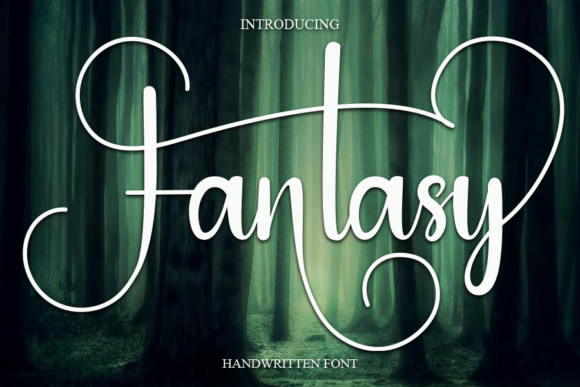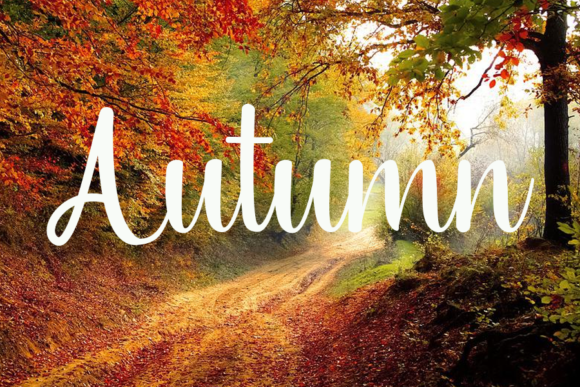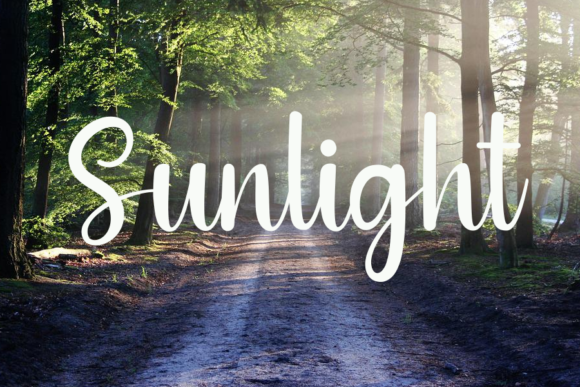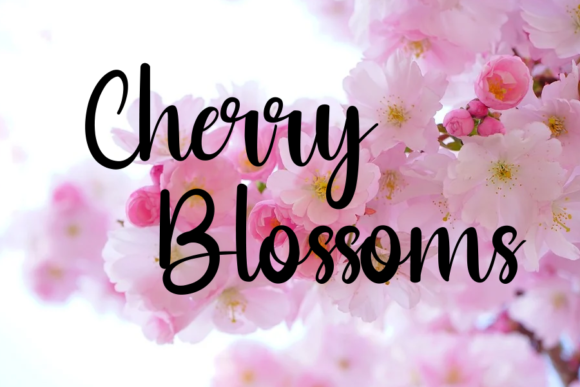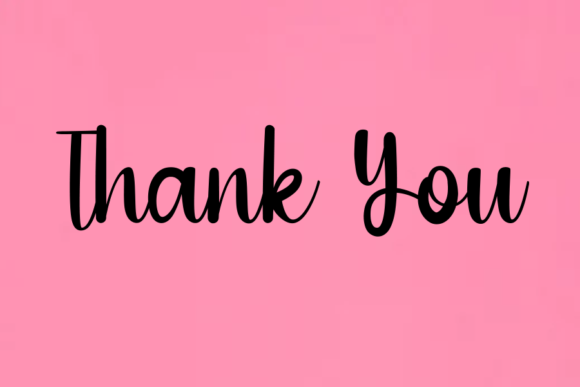
Fantasy Font
About Fantasy Font
“Fantasy” is described as a sweet, romantic, and beautiful script font, adorned with chic curves in each letter. Additionally, the font is PUA coded, offering easy access to all the glyphs and swashes for convenient customization.
The charming and romantic qualities of “Fantasy” make it a versatile choice for projects that require a touch of elegance and sophistication. The chic curves in each letter contribute to the font’s overall visual appeal, creating a flowing and graceful script that adds a sense of delicacy and refinement to the text.
One notable feature of “Fantasy” is its PUA coding, standing for Private Use Area. This coding system allows users to effortlessly access all the available glyphs and swashes. Designers can leverage this feature to personalize and customize their projects seamlessly, ensuring a unique and tailored appearance. Whether you’re working on wedding invitations, romantic quotes, or any creative endeavor that demands an expressive script, the PUA coding in “Fantasy” proves to be a valuable asset.
The versatility of “Fantasy” extends beyond its romantic undertones. It adapts well to various design contexts, from branding projects to social media graphics. The font’s ability to maintain readability while exuding a romantic and beautiful aesthetic makes it suitable for diverse applications.
In the hands of a designer, “Fantasy” becomes a tool for visual storytelling. Its sweet and romantic nature has the power to evoke emotions, making it an ideal choice for conveying love, joy, or any sentiment that aligns with a graceful script. The chic curves in each letter create a harmonious flow, ensuring that the font not only looks beautiful but also reads well.
In conclusion, “Fantasy” emerges as more than just a script font; it is a visual storyteller. Its sweet, romantic, and beautiful design, complemented by PUA coding, positions it as a versatile and powerful asset for designers seeking to infuse their projects with elegance and charm. Whether employed in wedding materials, quotes, or various creative applications, “Fantasy” adds a distinctive and refined touch that enhances the overall visual experience.